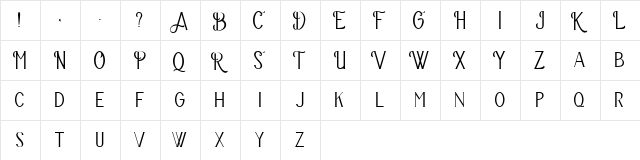
The Bravery Regular
| Foundry | Pollux of Geminorum |
| Designer | Suke Toejoeh |
Design Context for The Bravery Typeface
The Bravery offers clean, dependable letterforms without strong stylistic allegiance, making it a practical choice for designers who need flexibility.